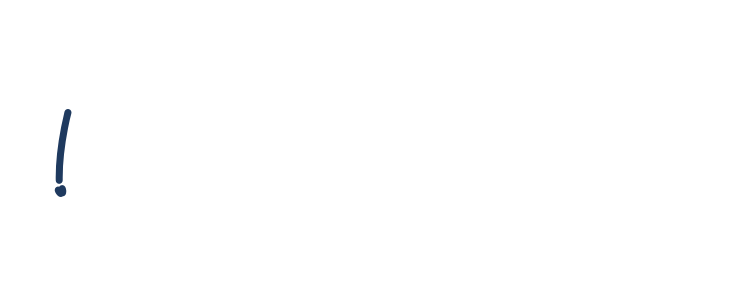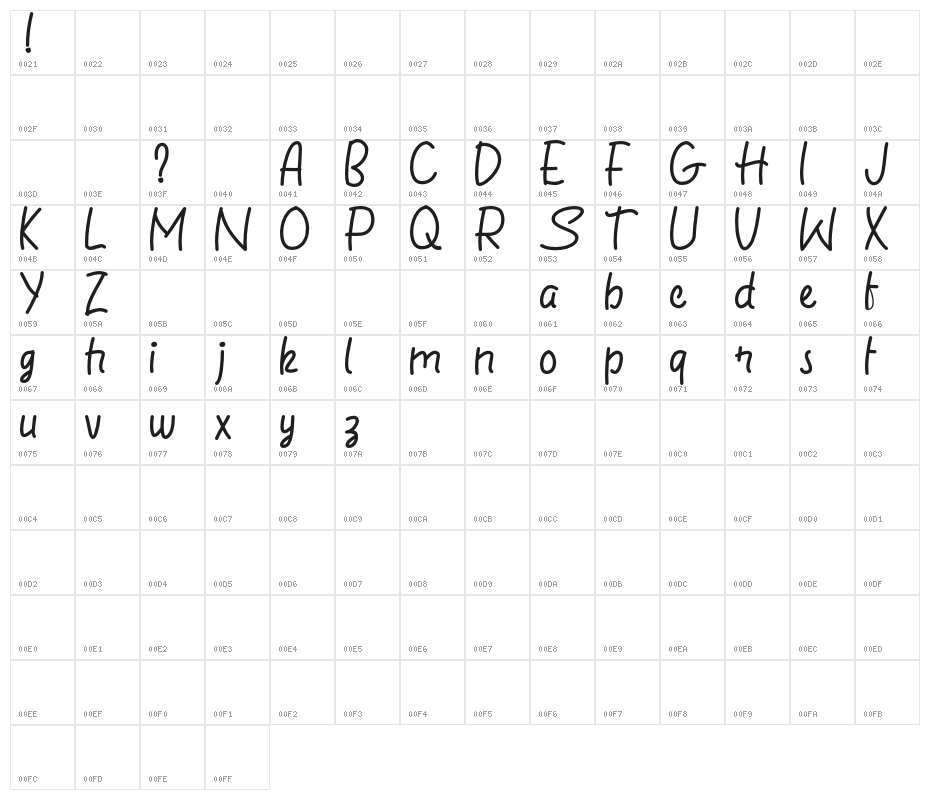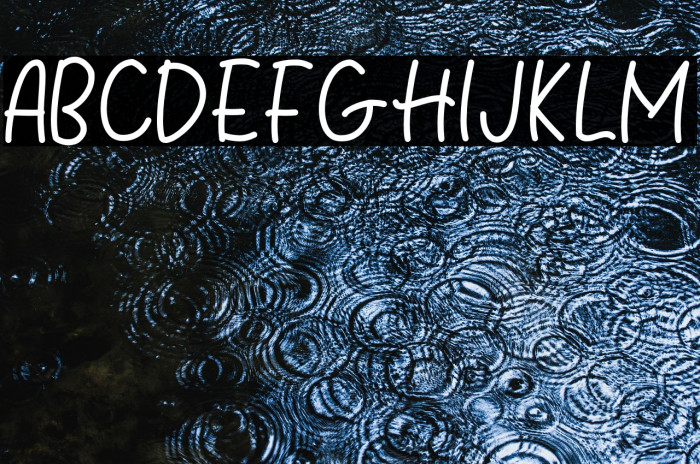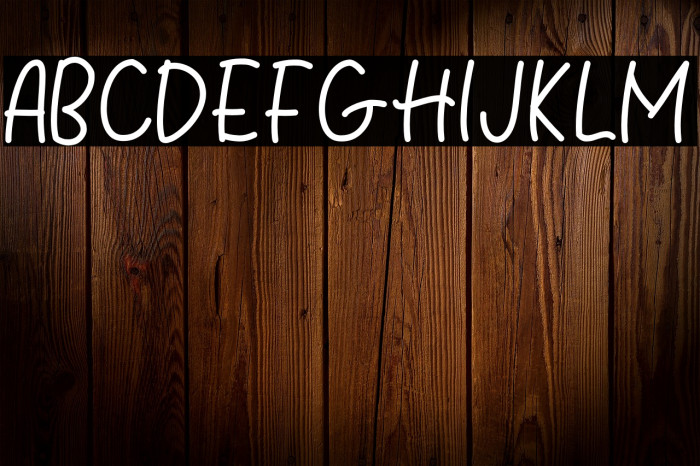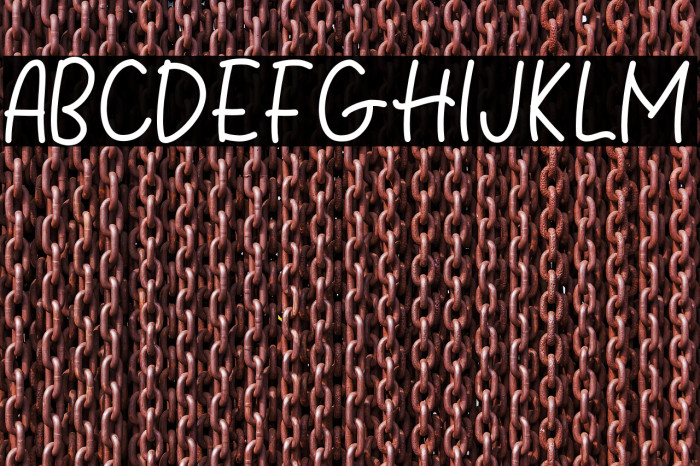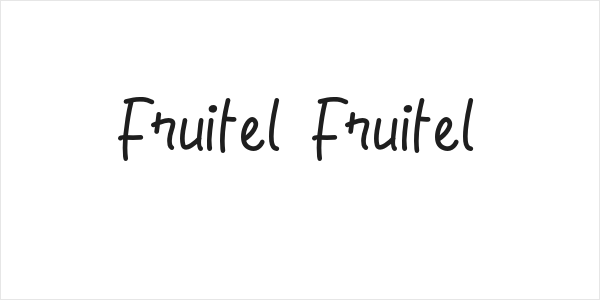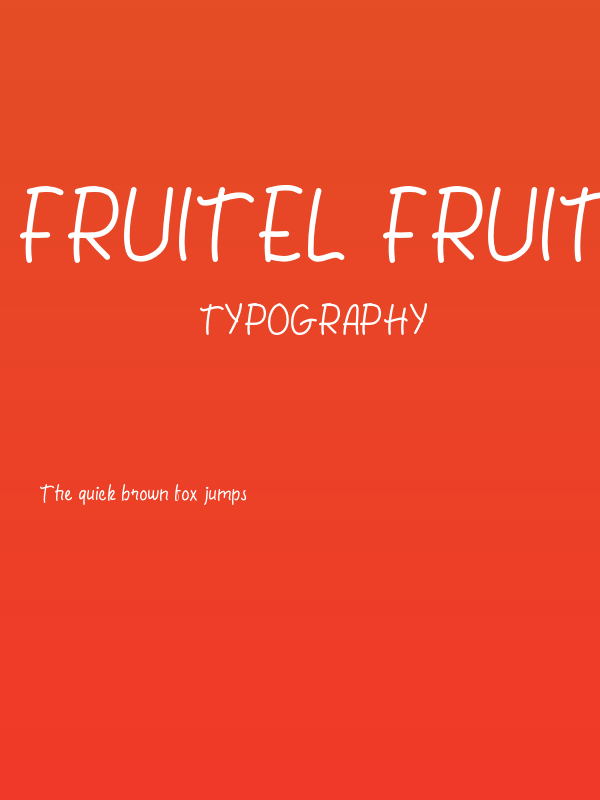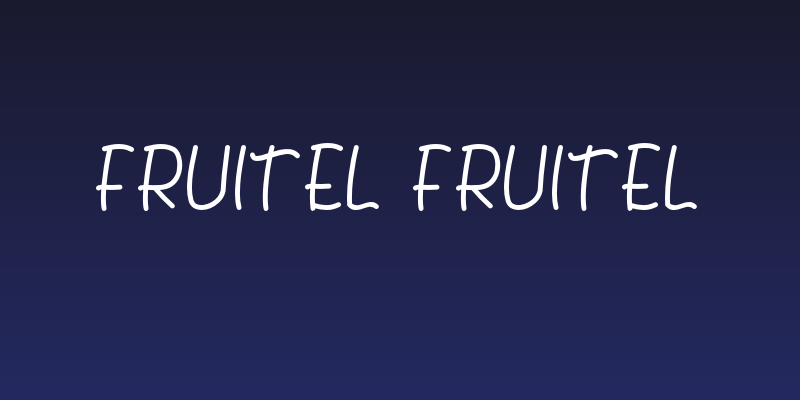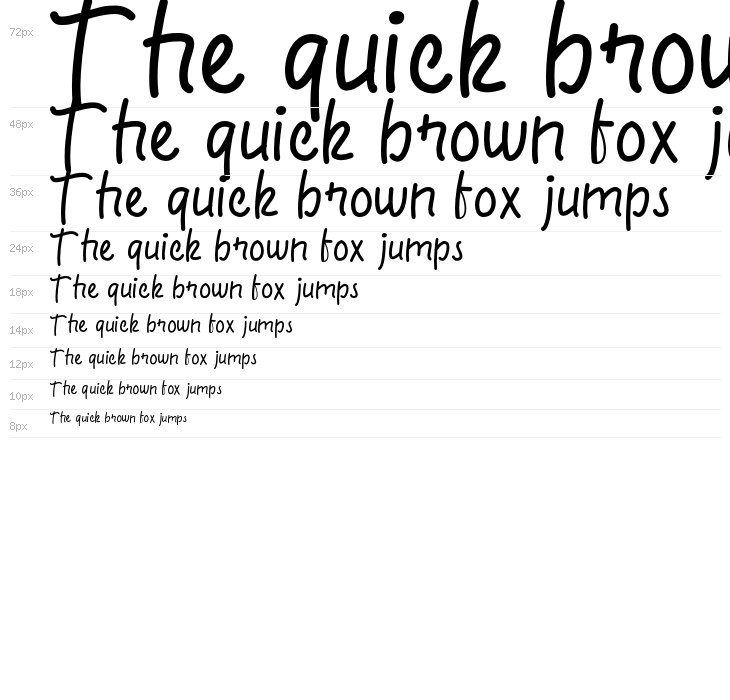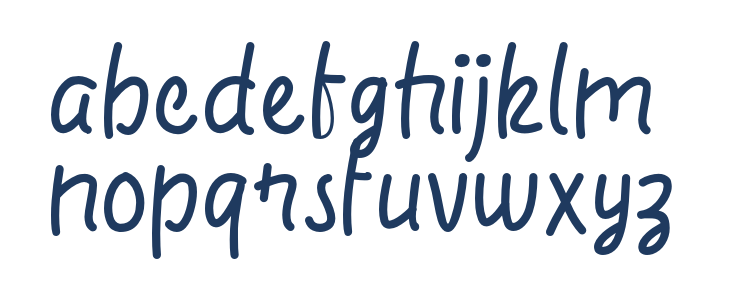
Fruitel-Fruitel Font
Fruitel-Fruitel Description
This playful and energetic font features a handwritten style with a casual and friendly appearance. The uppercase letters are tall and slightly narrow, with a consistent stroke width that gives them a clean and modern look. The lowercase letters are more varied, with some characters like 'g' and 'y' having distinctive loops that add a touch of whimsy. The font maintains a consistent baseline, while the ascenders and descenders are moderately long, contributing to its legibility. The overall design is informal yet stylish, making it suitable for projects that require a personal touch. The font's simplicity and charm make it versatile for various creative applications.